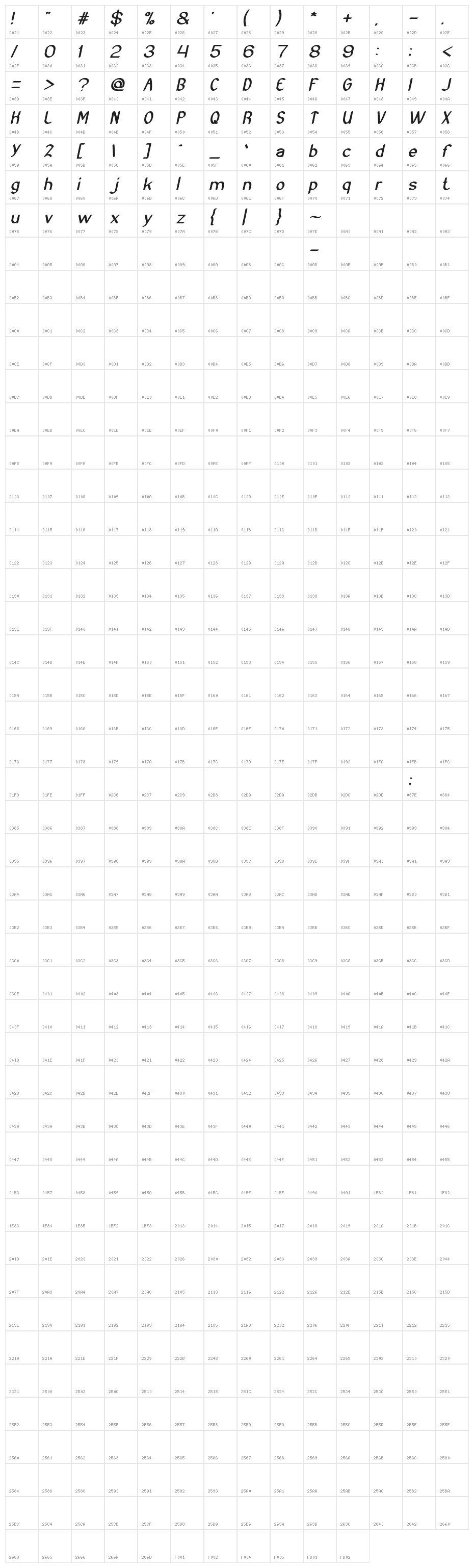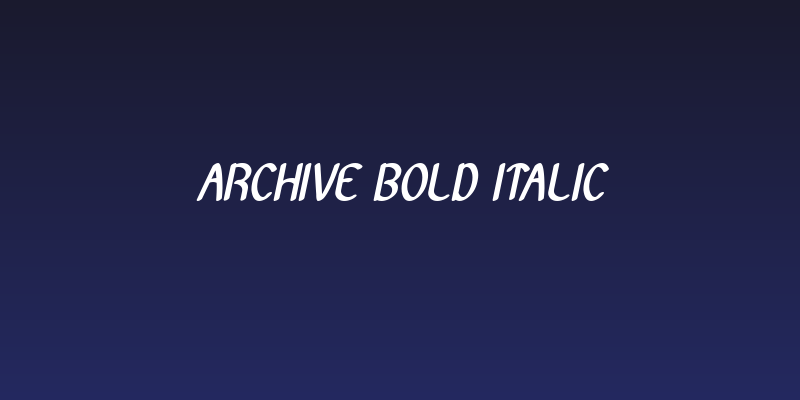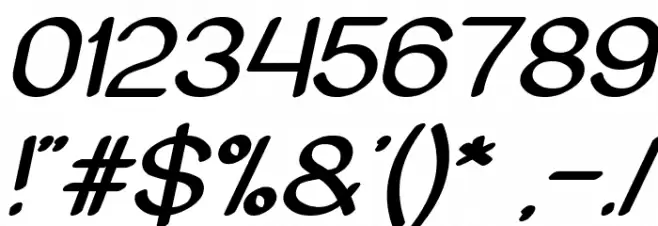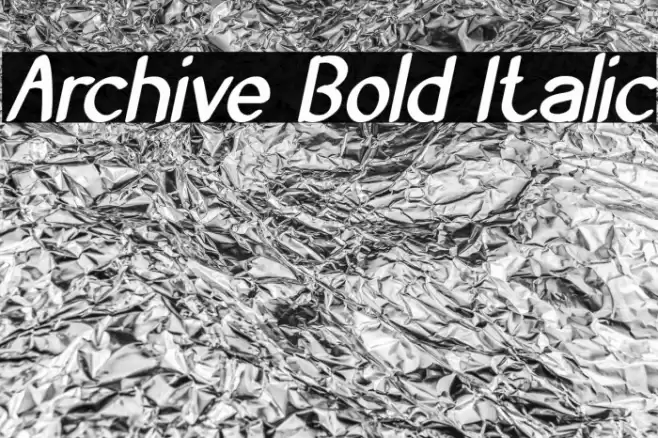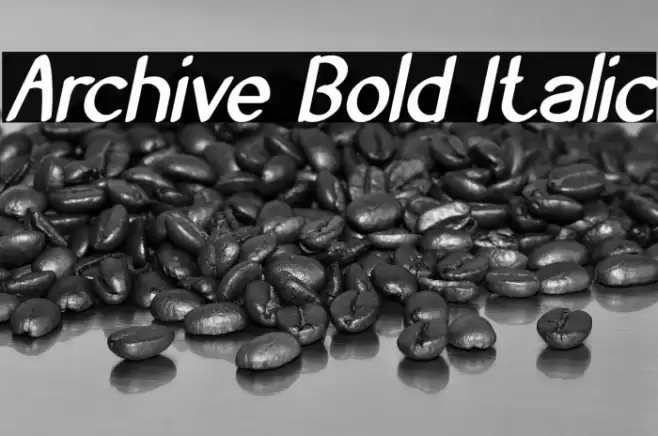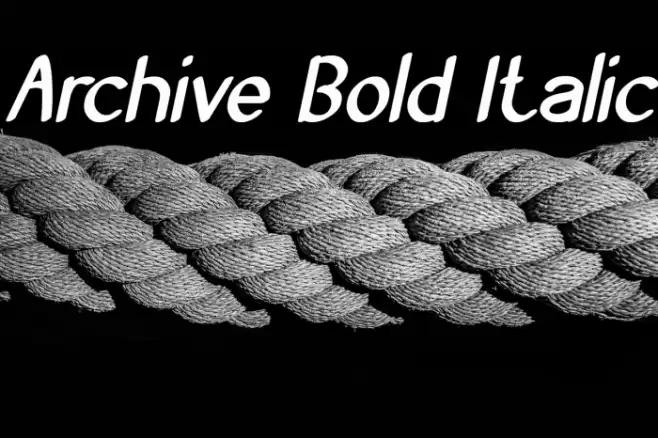
Archive Bold Italic Font
This font features a bold and italicized style, characterized by its smooth curves and dynamic slant. The letters are well-rounded with a consistent stroke width, giving it a strong and assertive appearance. The uppercase letters are slightly taller than the lowercase, maintaining a harmonious balance. Numbers and special characters follow the same bold and italicized design, ensuring uniformity across all glyphs. This font's energetic and modern look makes it suitable for various creative applications.